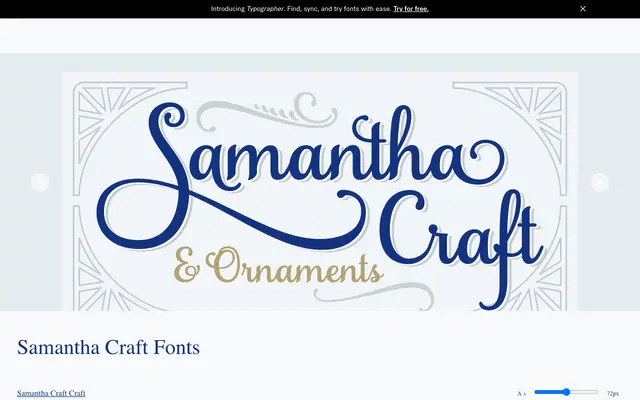
Samantha Craft
A pointed-pen script with slightly condensed letterforms, a measured rhythm and an extensive OpenType feature set including swashes, ornaments and 20 stylistic sets.
Drawn from pointed-pen lettering traditions, Samantha Craft has a bright, upright quality with a slightly condensed structure that keeps it legible at display sizes. The family ships in two styles, Craft and Frames, with a full suite of OpenType features including swashes, titling capitals, discretionary ligatures and 20 stylistic sets. Laura Worthington has coded the fonts so that swashes and alternates are accessible without professional design software.
Based explicitly on pointed-pen lettering with a slightly condensed, rhythmic structure, placing it firmly in the pointed-pen script tradition alongside calligraphic brush and copperplate styles.